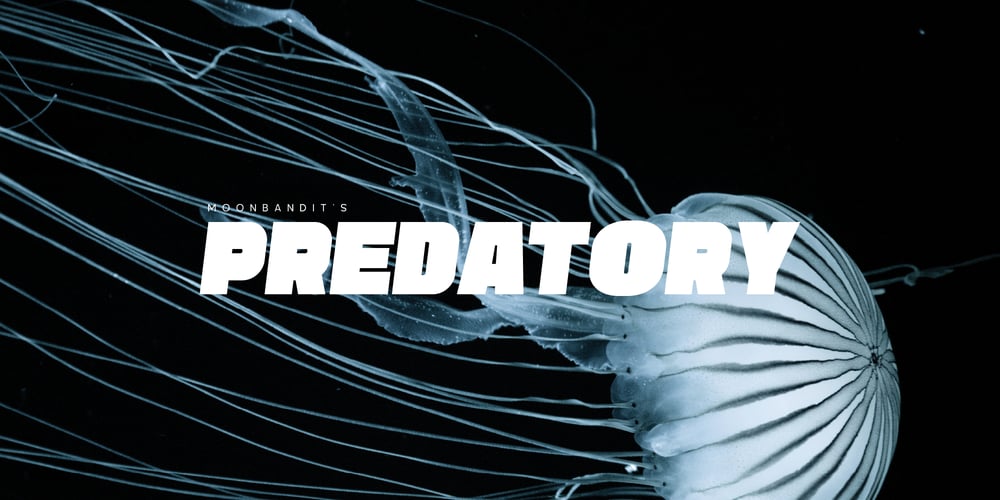
MBF Predatory
MBF Predatory font
MBF Predatory Font Family was designed by Bramaji Dipa Manggala and published by Moonbandit. MBF Predatory contains 4 styles and family package options. Moonbandit presents Predatory, a bold modern sans serif titling font. A multi purpose display font with high impact